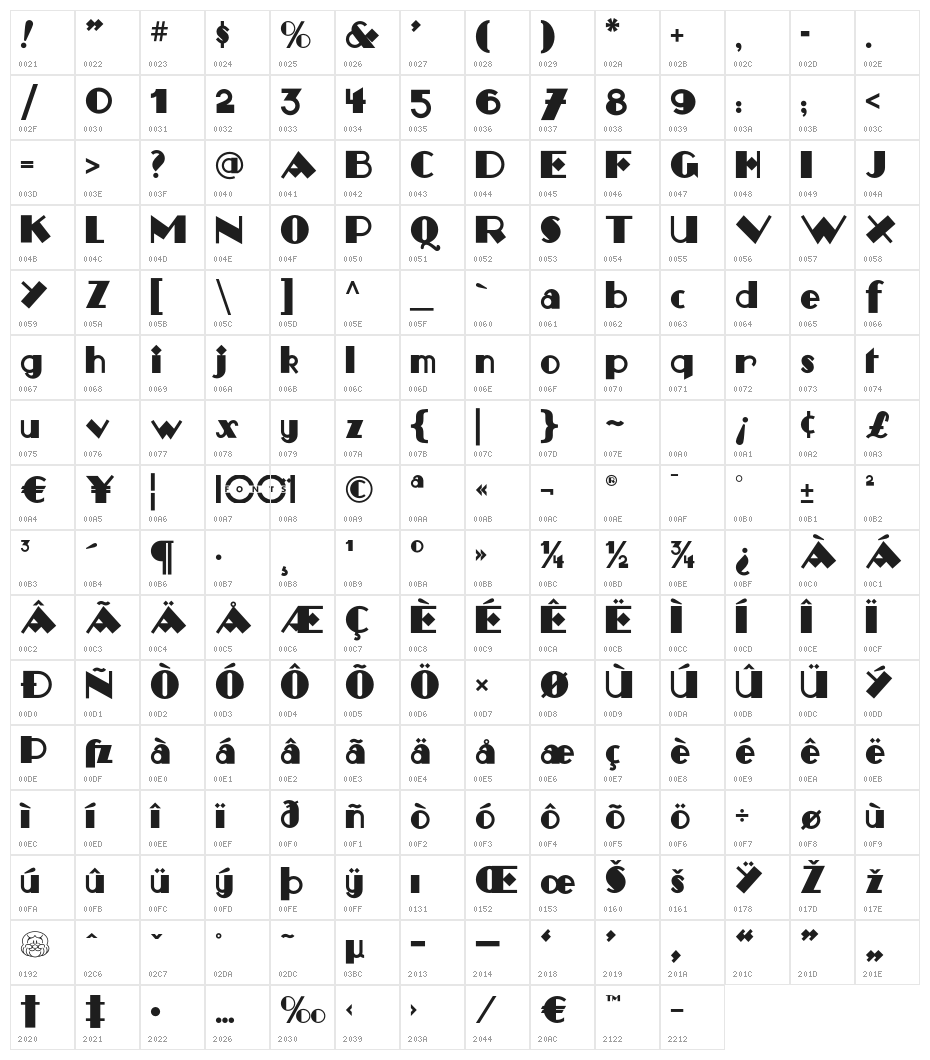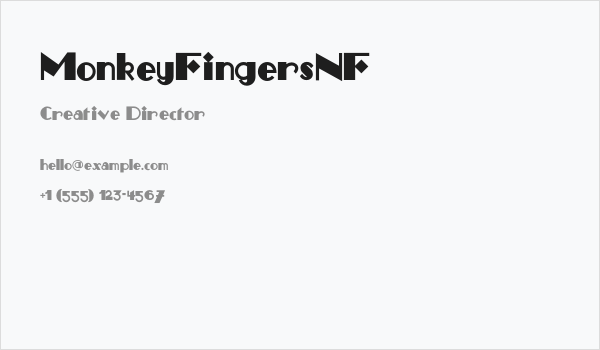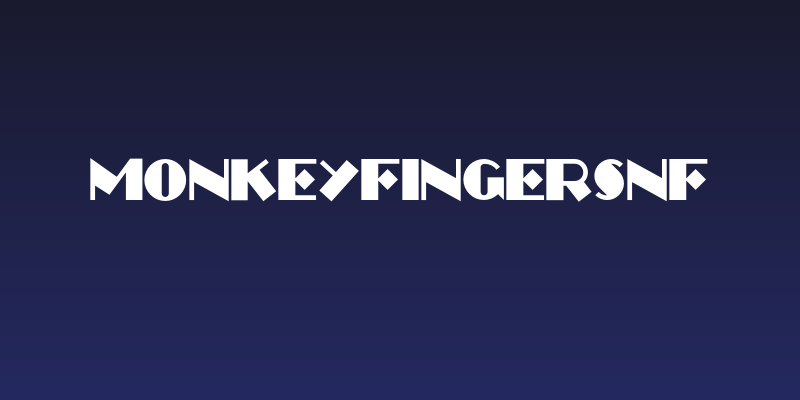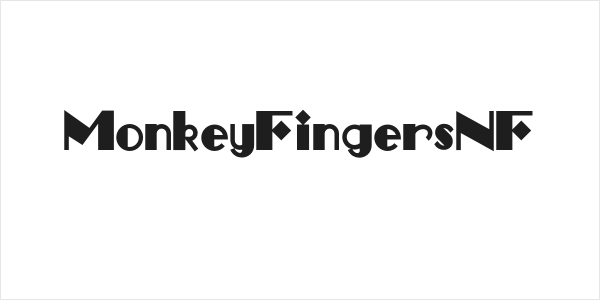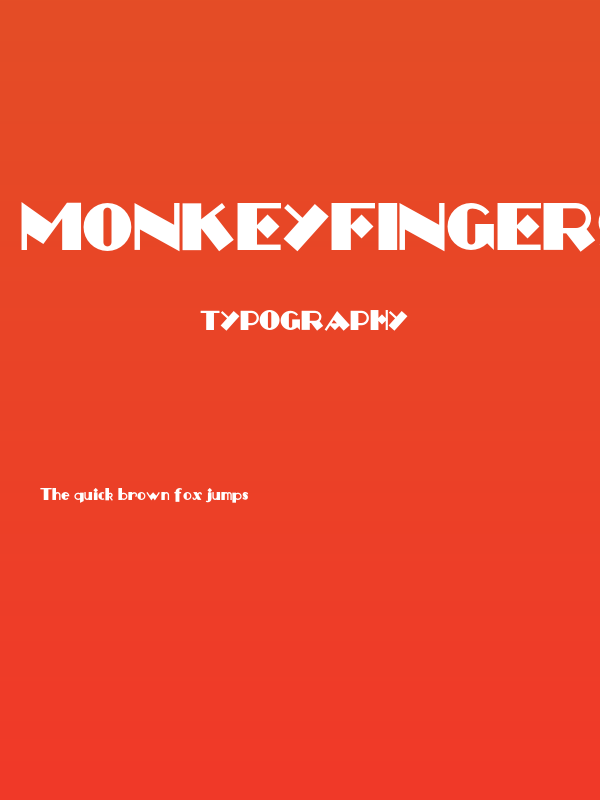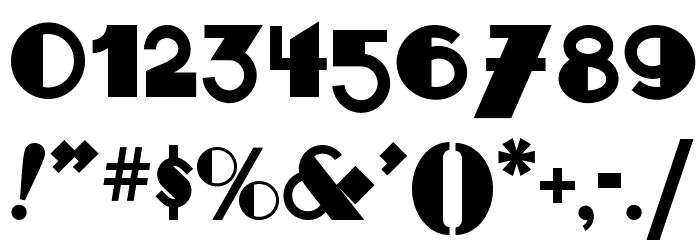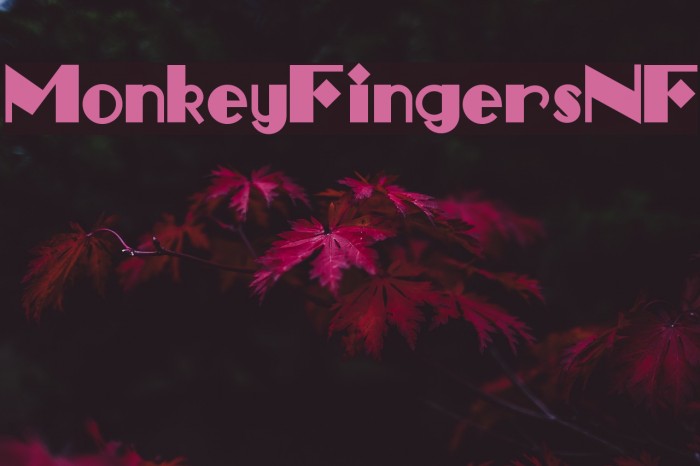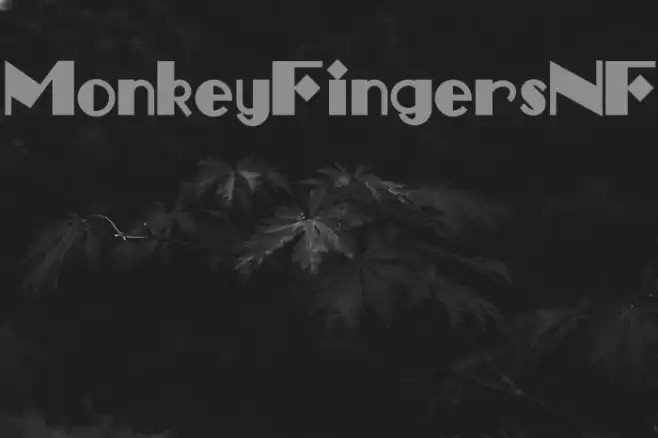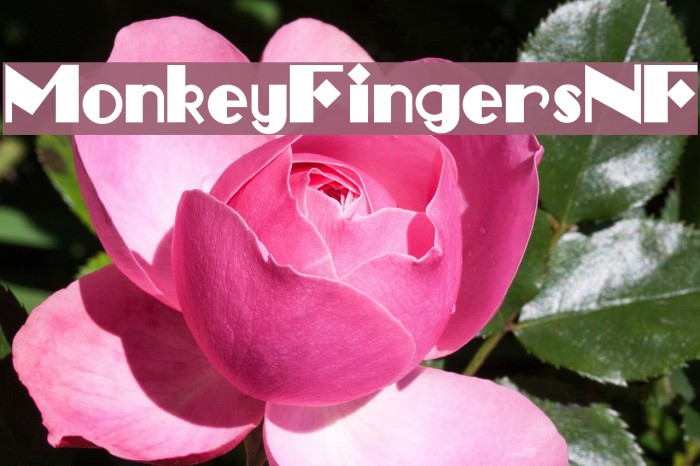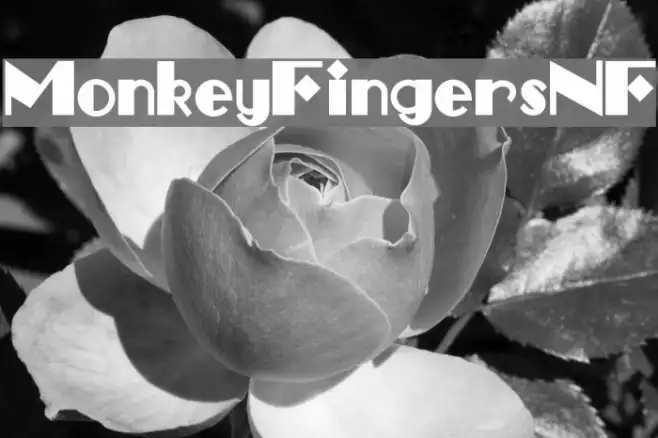
MonkeyFingersNF Font
MonkeyFingersNF Description
This font features a bold and playful design with geometric elements and sharp angles. The uppercase letters are characterized by strong, angular shapes and a sense of movement, while the lowercase letters maintain a similar style with slightly softer curves. The numbers are bold and consistent with the overall geometric theme. Special characters are creatively designed, adding to the font's unique personality. The font's distinct style makes it suitable for eye-catching designs and creative projects.
| Overall Style | Modern, Decorative |
| Proposed Projects | Ideal for posters, branding, logos, and any project requiring a bold, eye-catching typeface. |